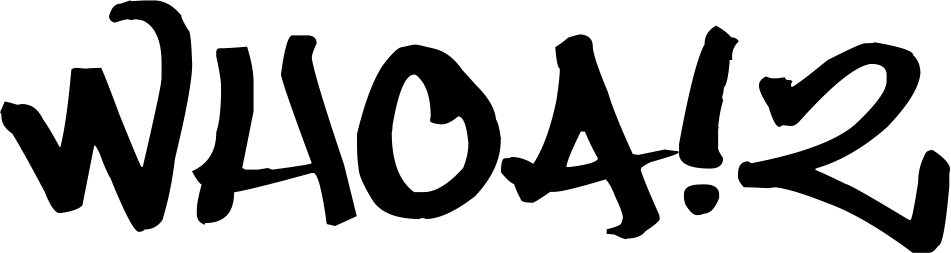
Whoa!2 Font
If you would like to give your typography that messy, urban-looking design, then you should consider utilizing Whoa!2, which is an amazing graffiti font! The bold informal, out-of-shape, and comical character will make your design interesting, playful, and with an arty look.
There are only capital alphabets included for Whoa!2 as it doesn’t contain any lowercase letters, numbers, or punctuation. An example of a few places where this urban font is usually found are games, clothing, comics, branding, and posters.
This font is named after the Swedish hiphop community “Whoa” (www.whoa.nu).